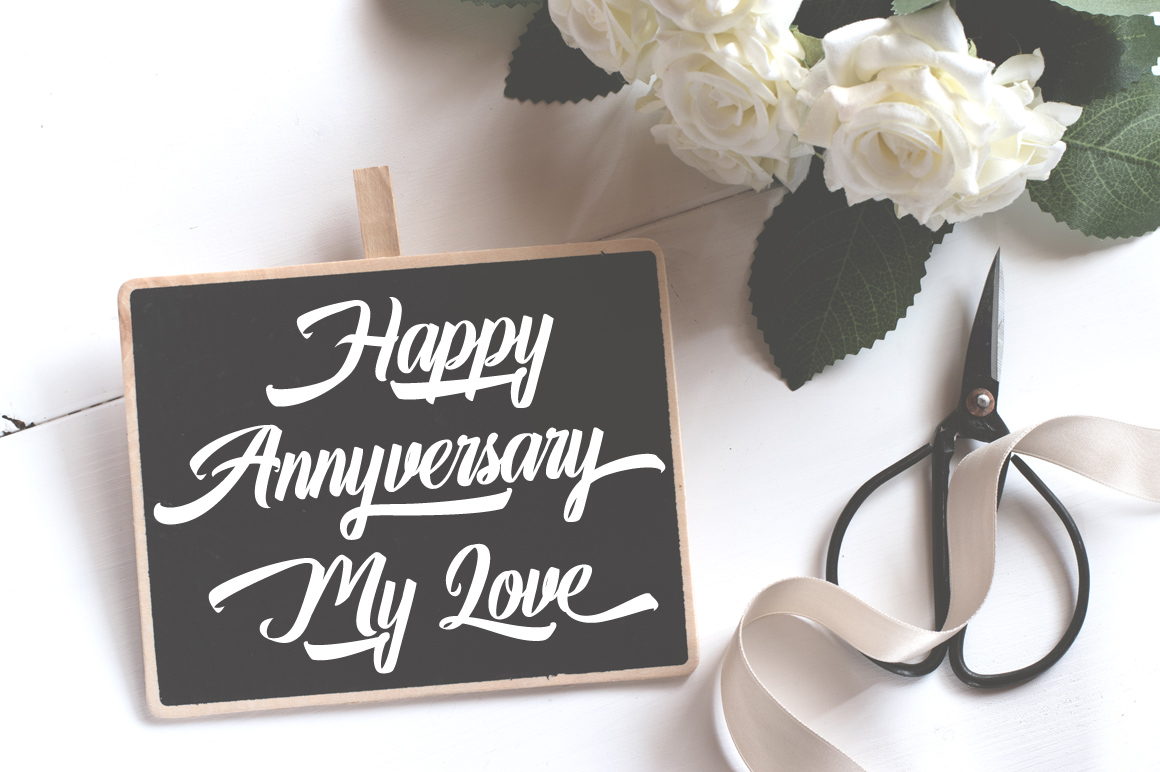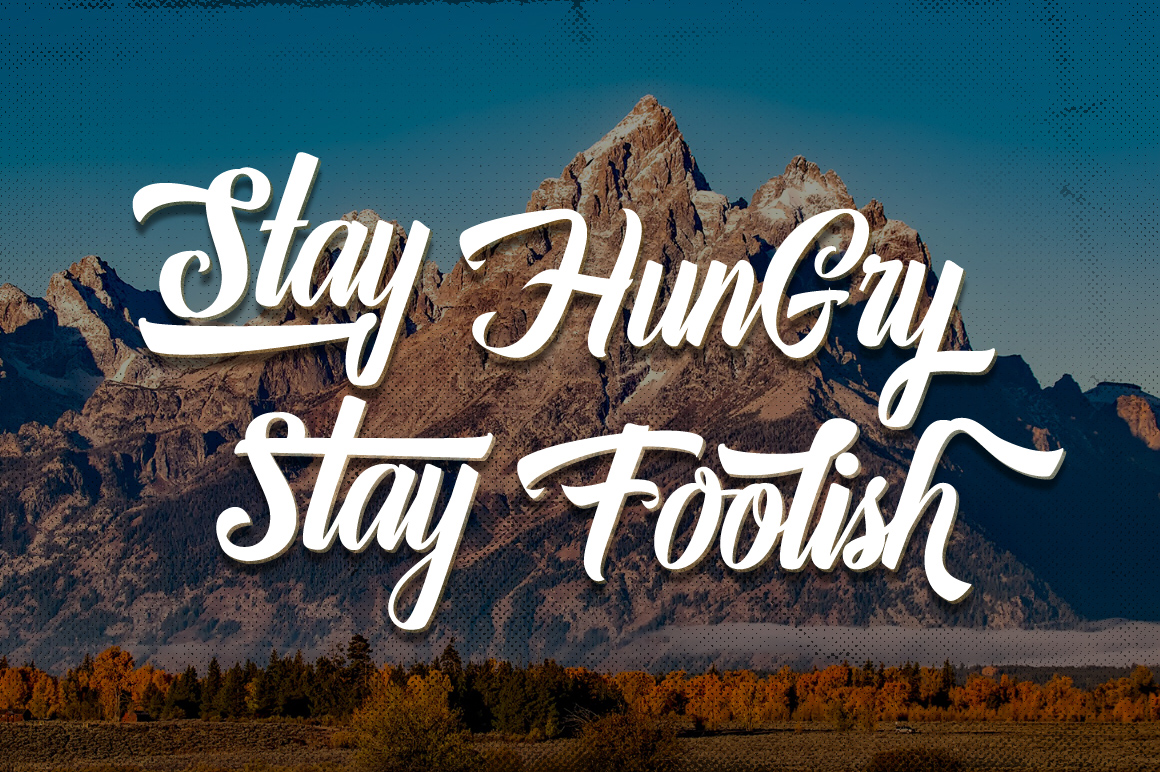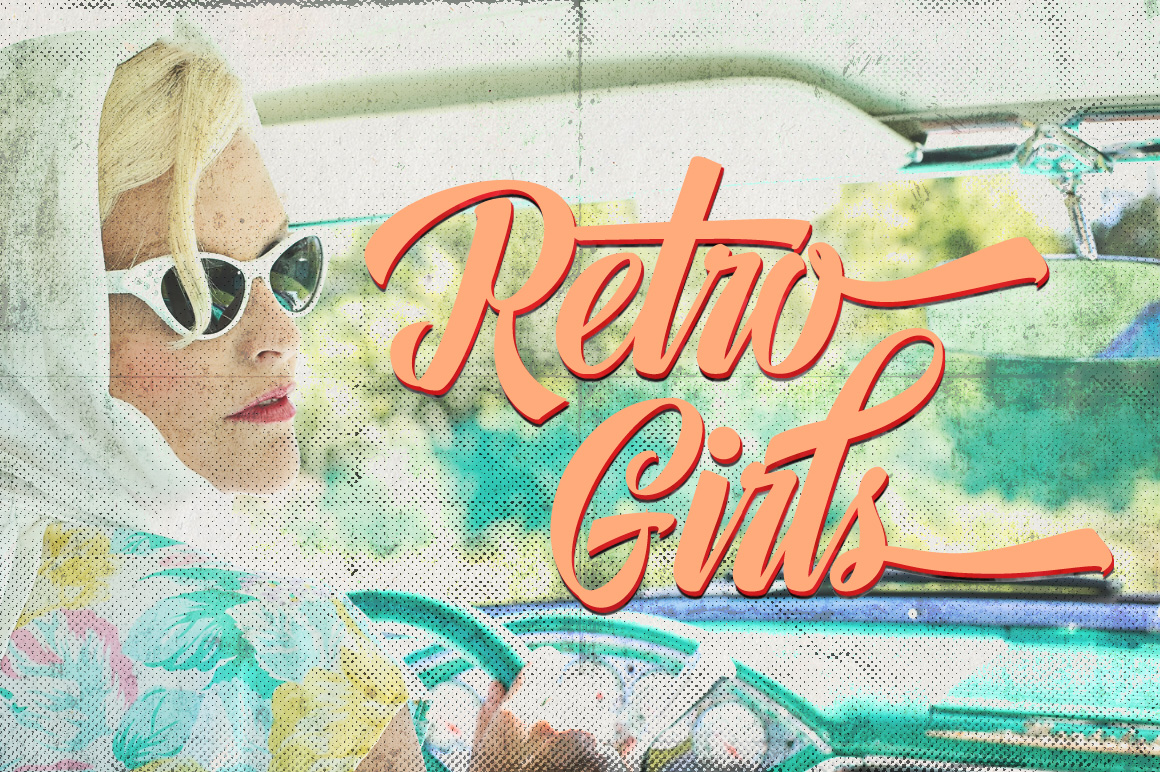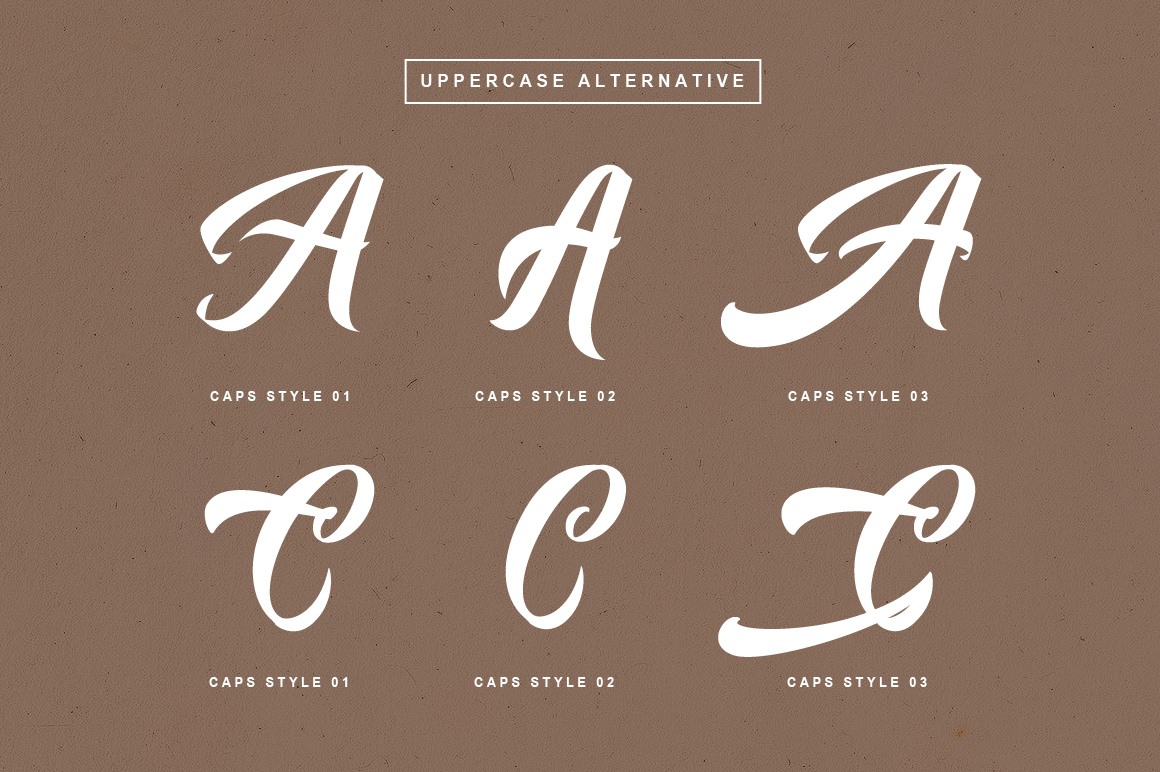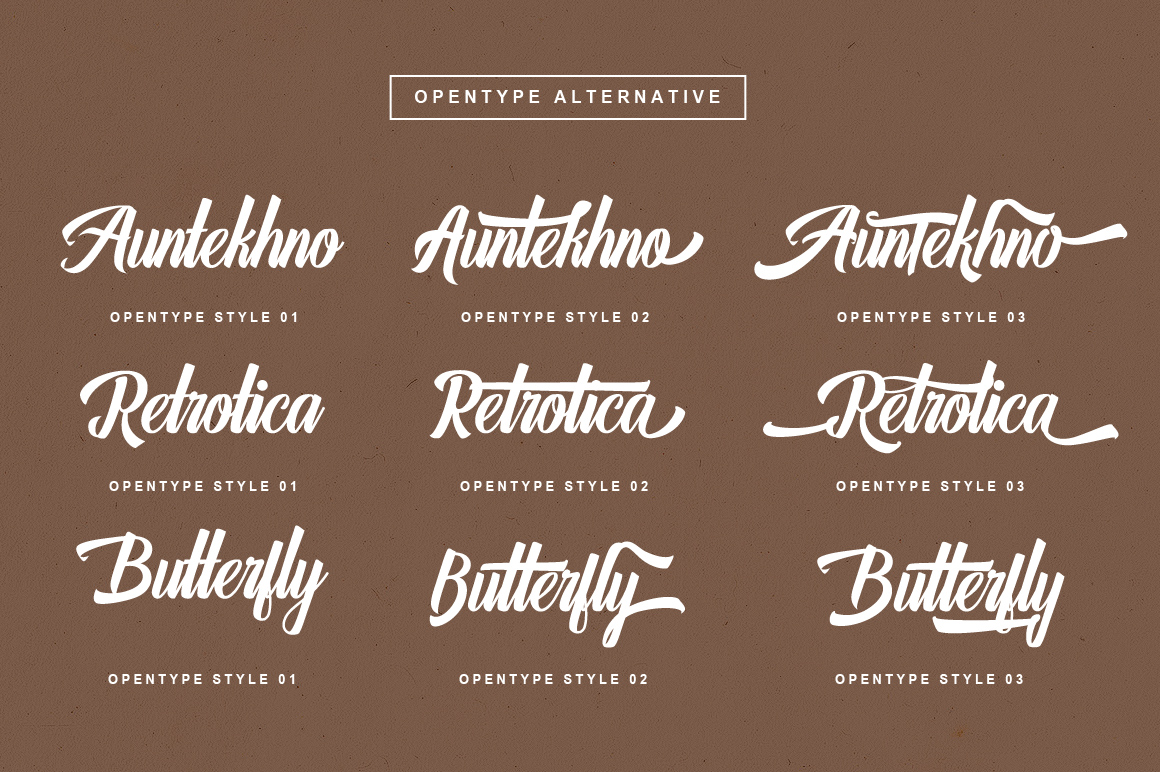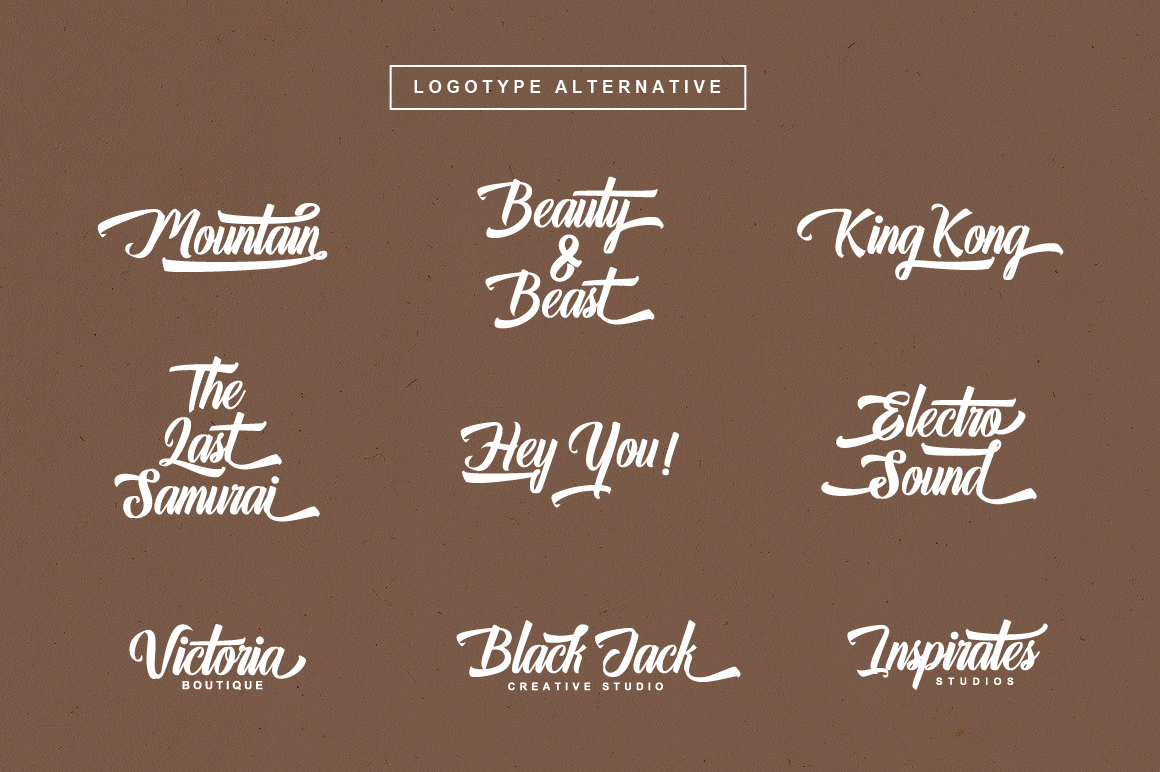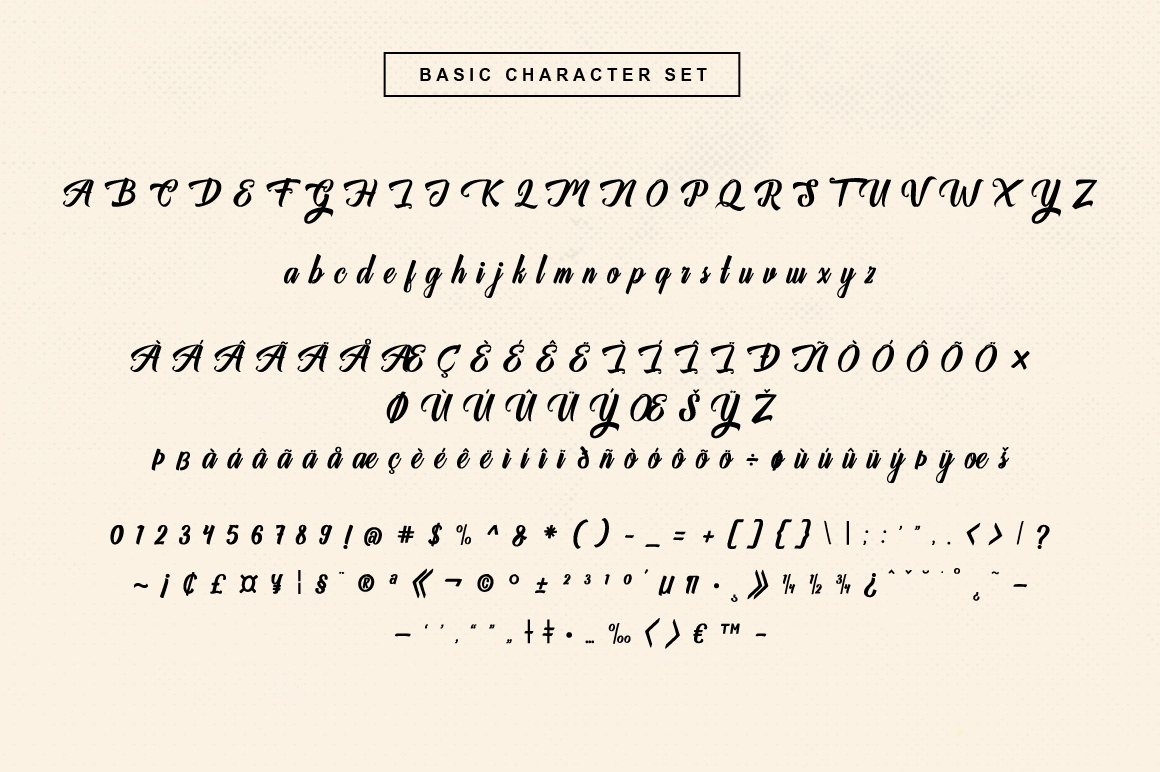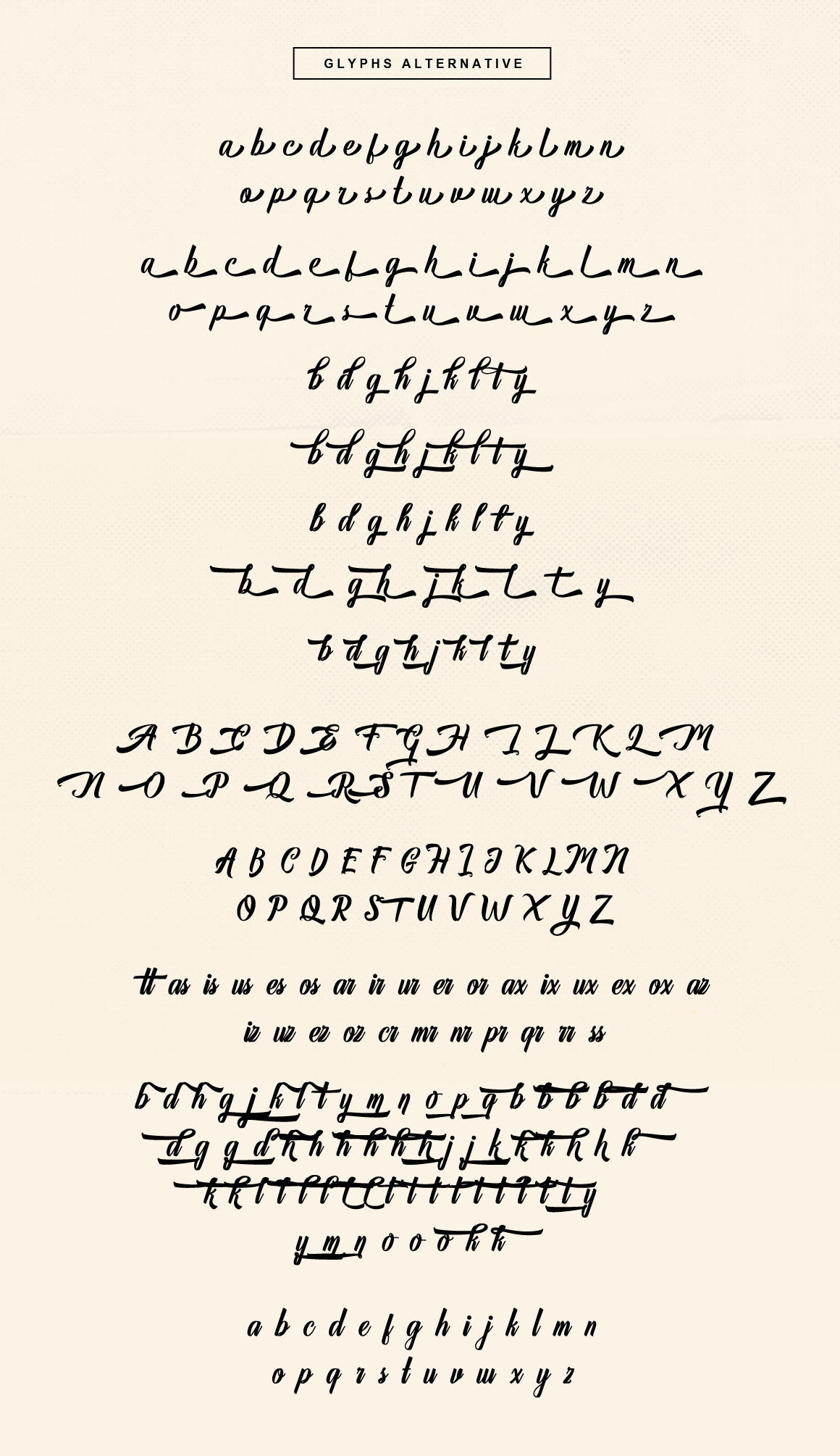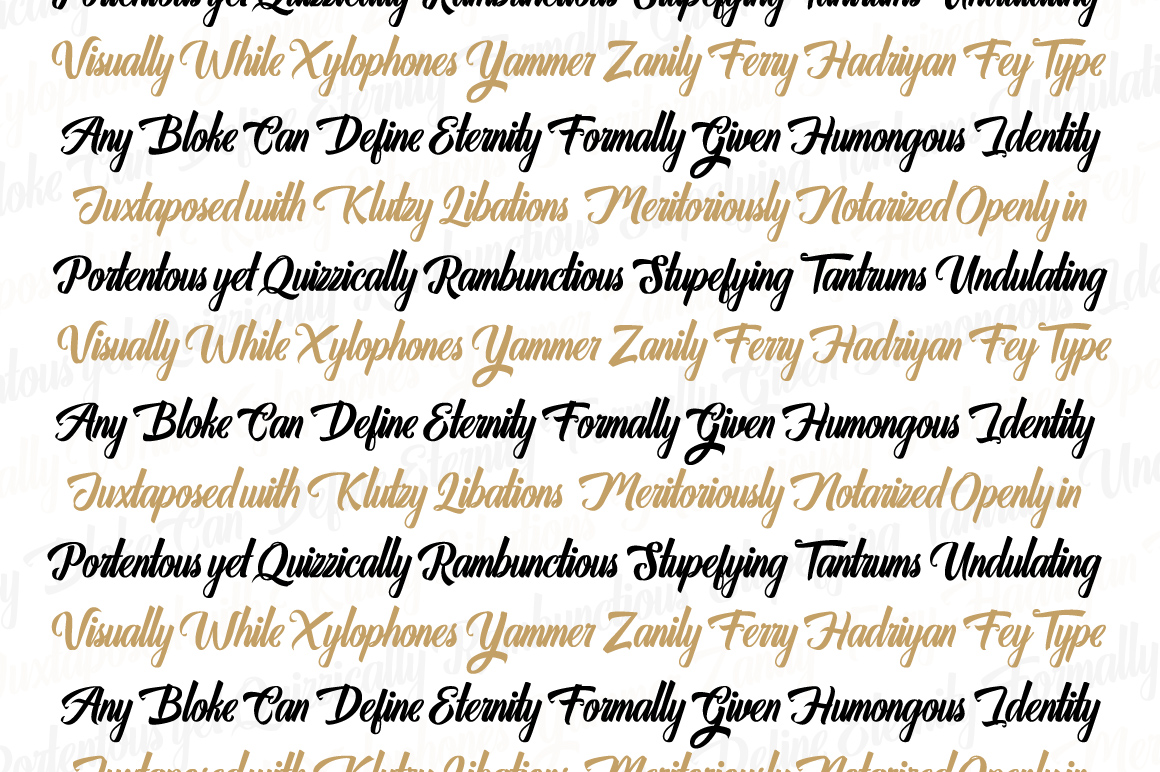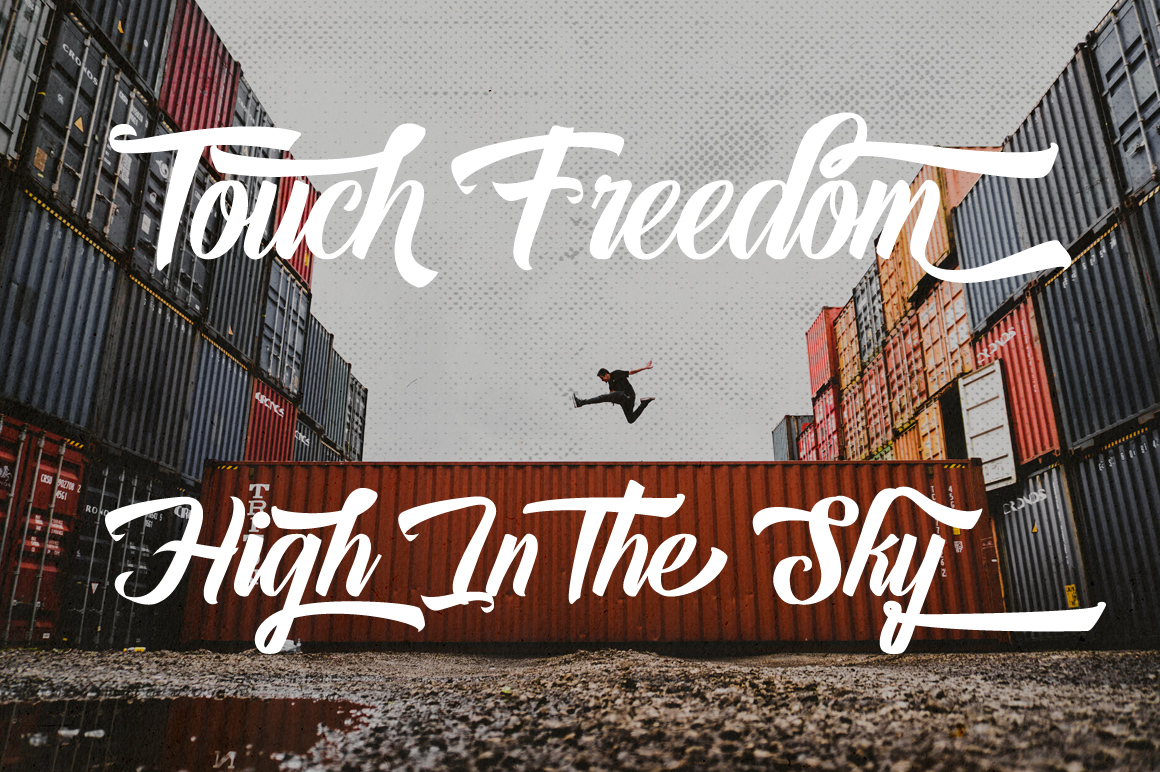
Auntekhno Script Font
Auntekhno Script is an awesome and bold handwritten font with tons of alternates and ligatures. This font will give any project a branded appeal, and has a cool vintage painterly style that is both retro and modern.